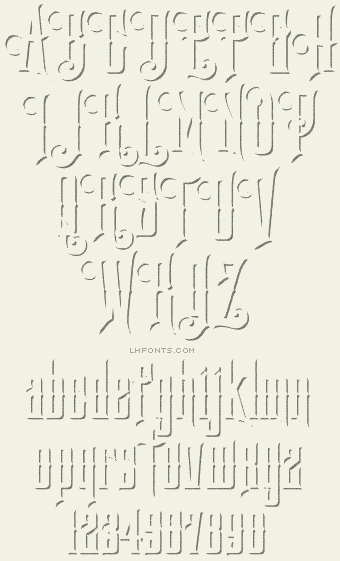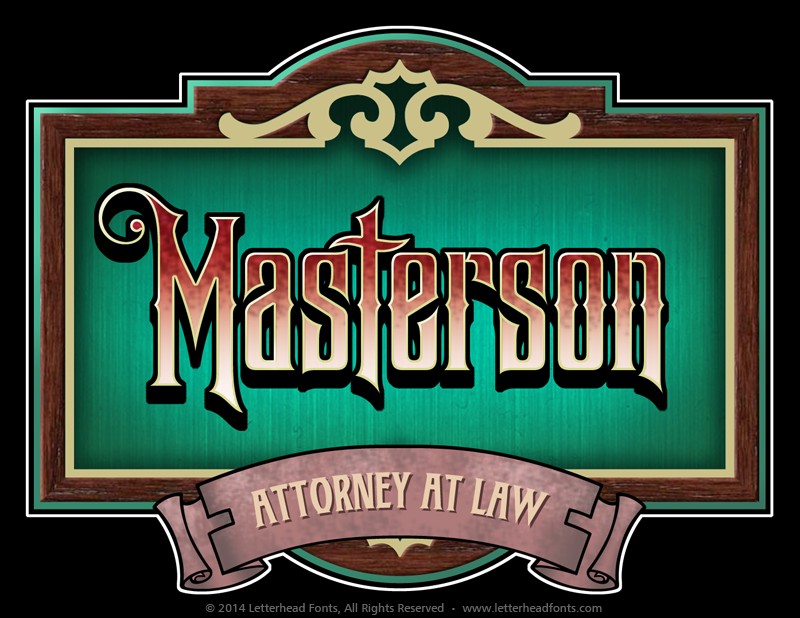
A modern spin on a Gothic style. You'll love the versatility of LHF Phantom with both graceful curves and sharp corners. Use the Regular version alone or finish your design with the Lined or Block Shadow versions. When used together, the outcome is a perfect shadow effect. Set includes over 20 bonus alternates & ligatures. You might also like: Hamilton Ornate & Safire.